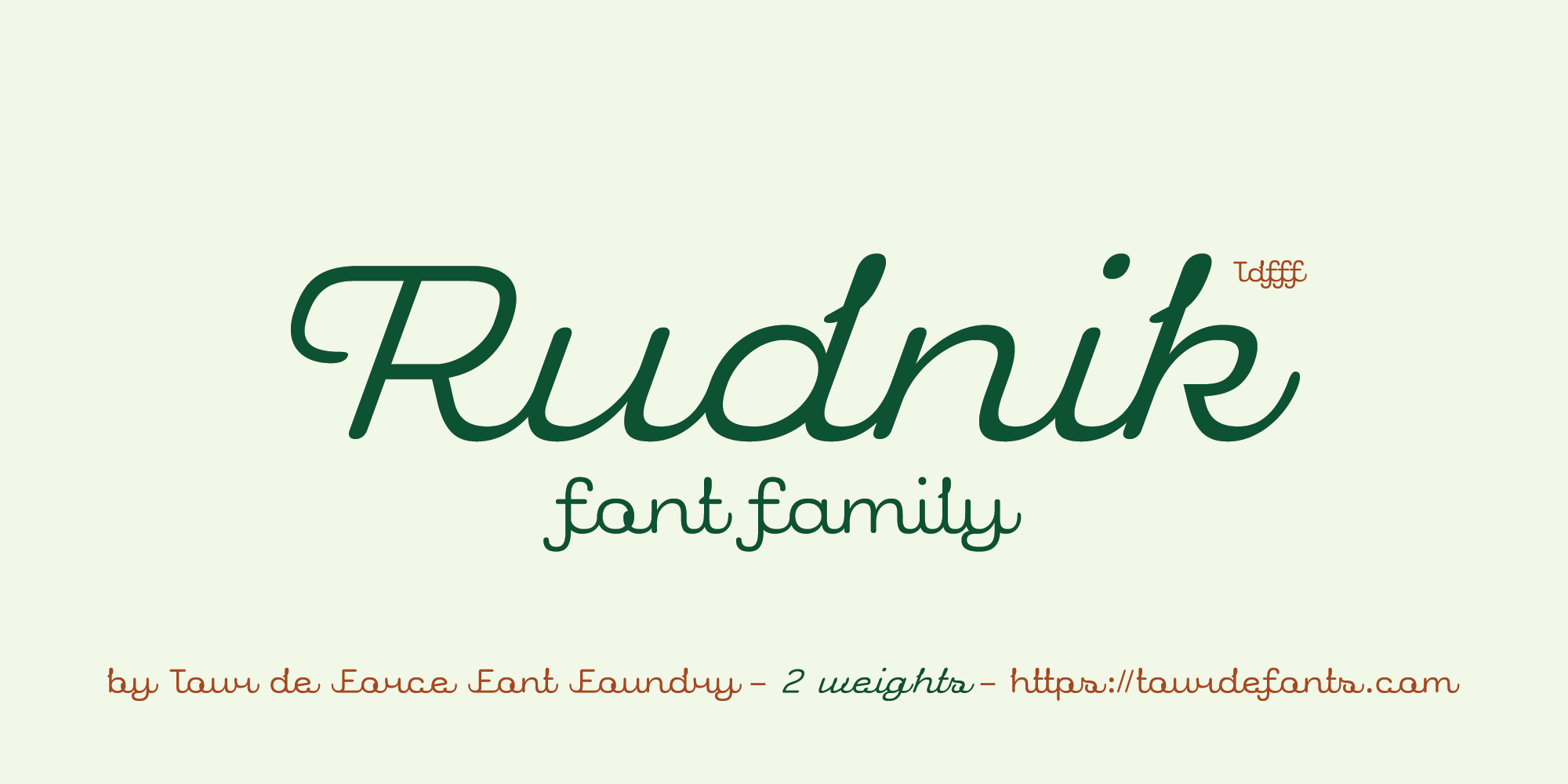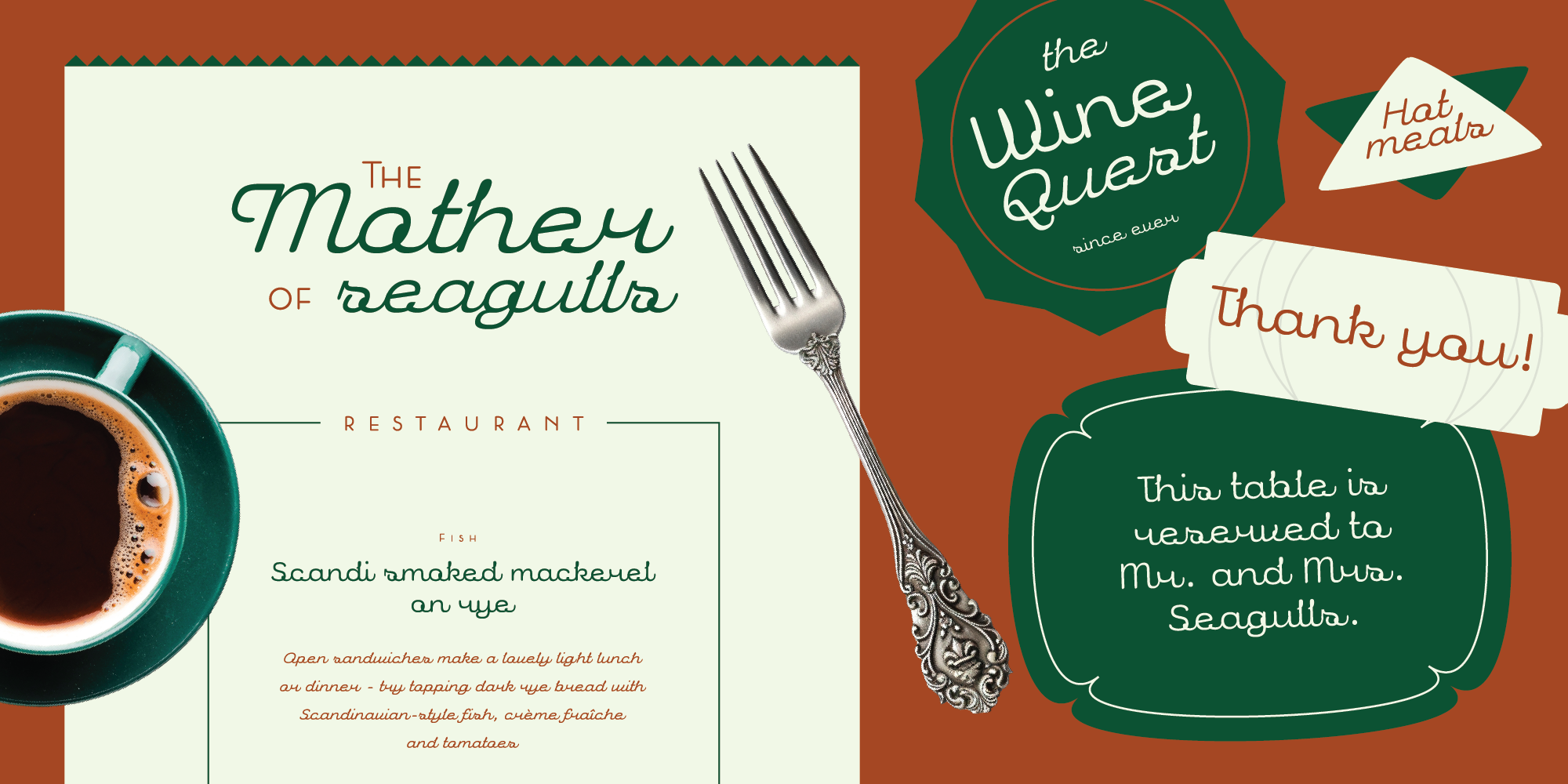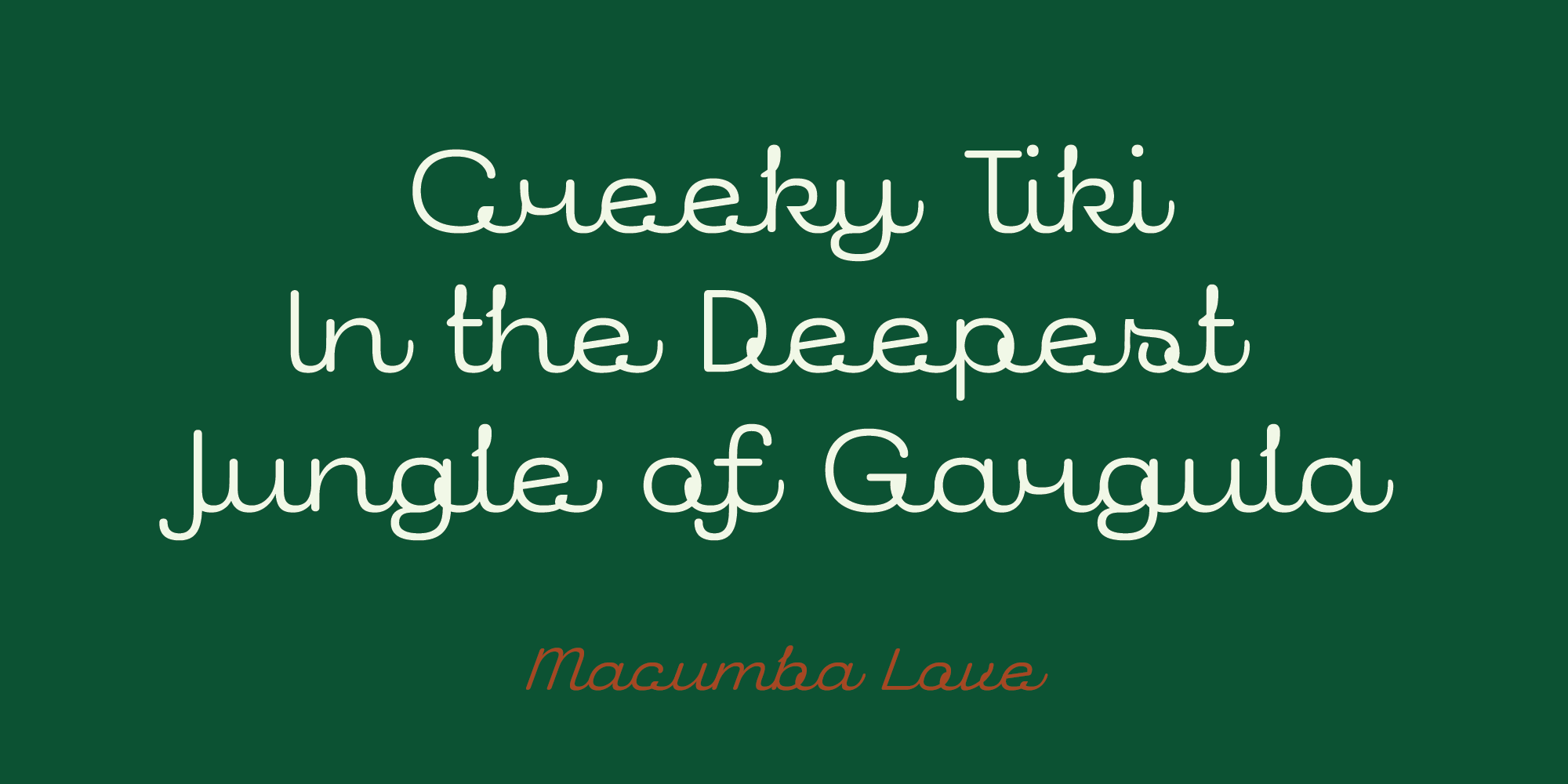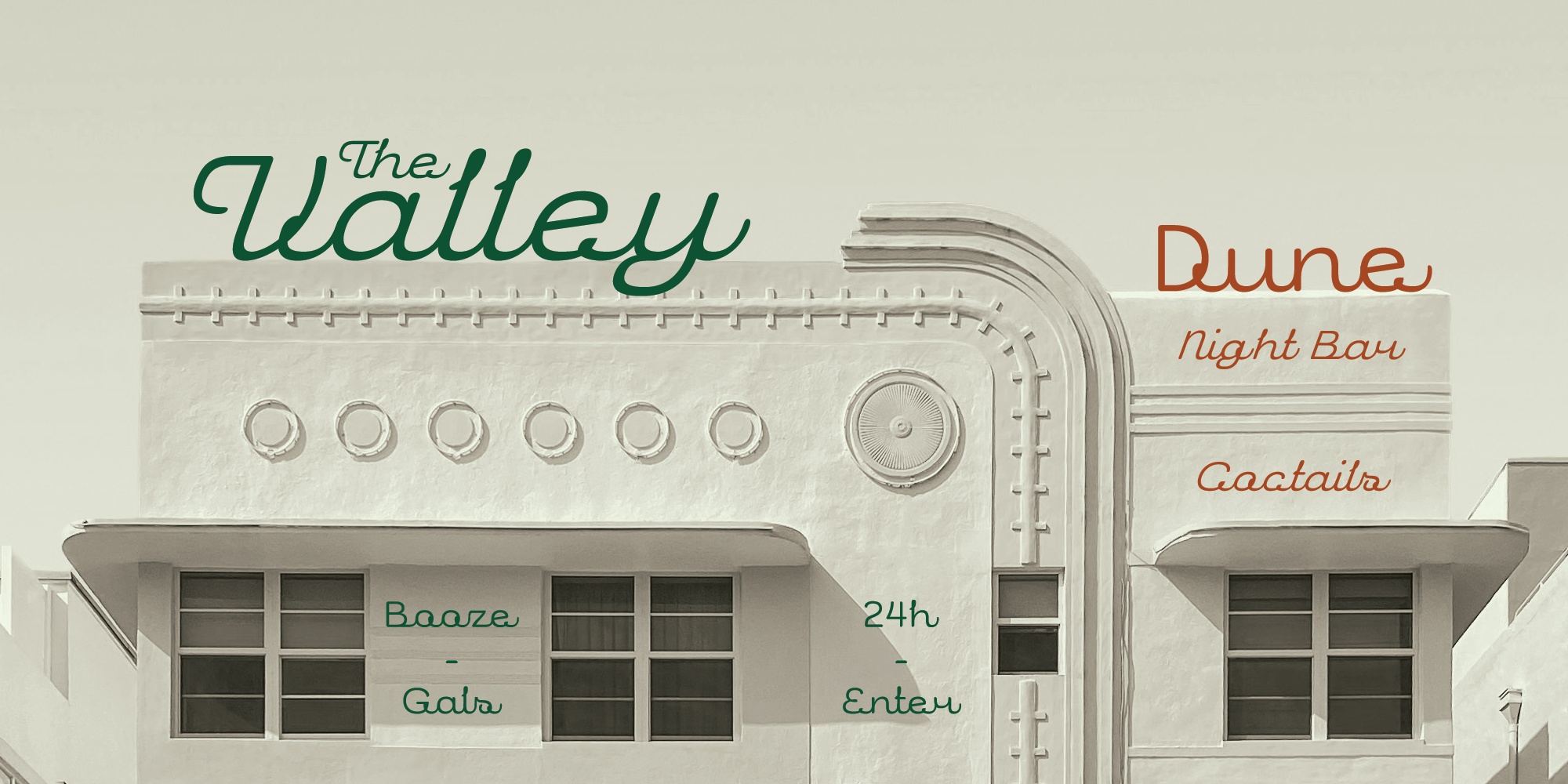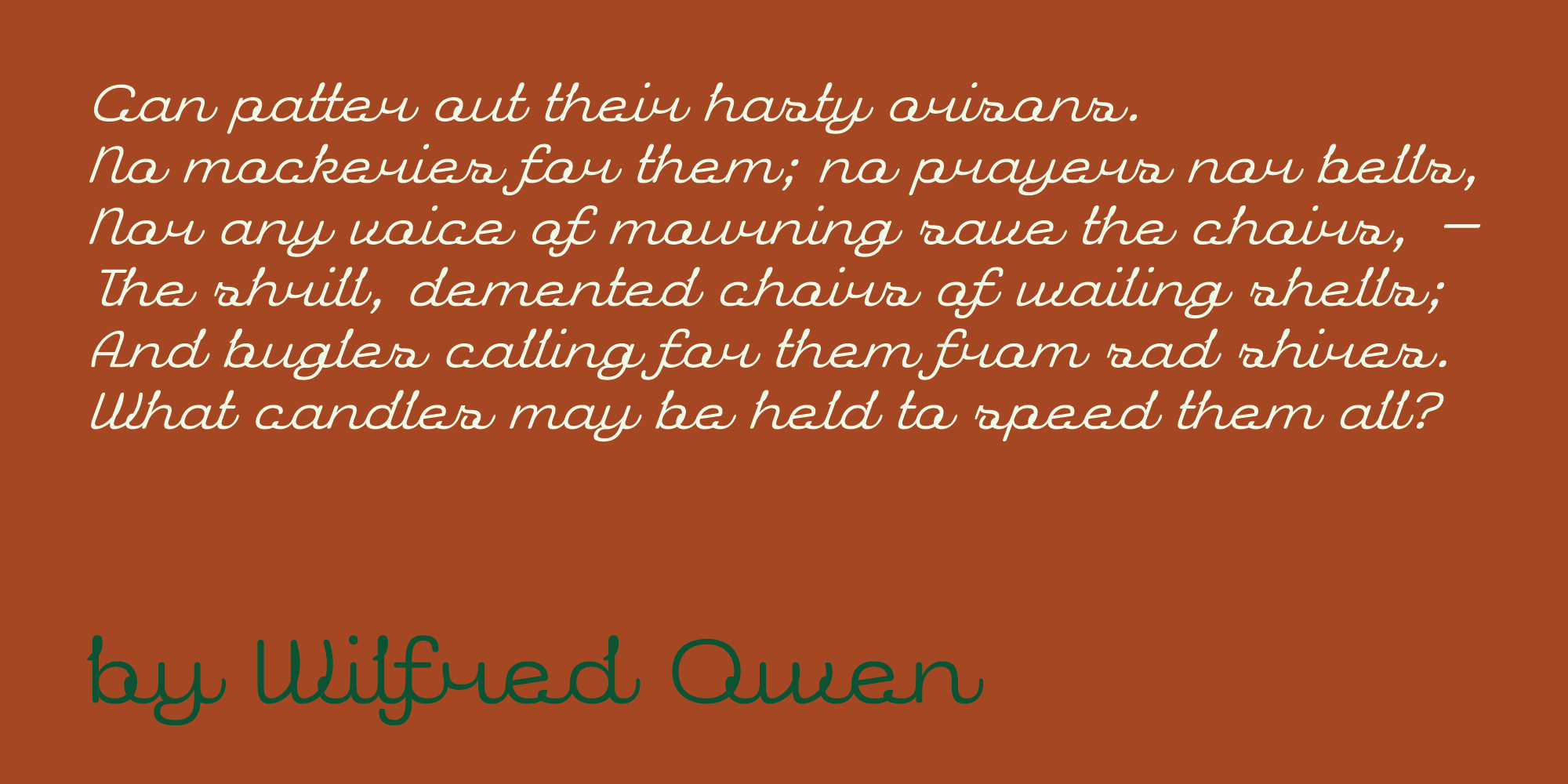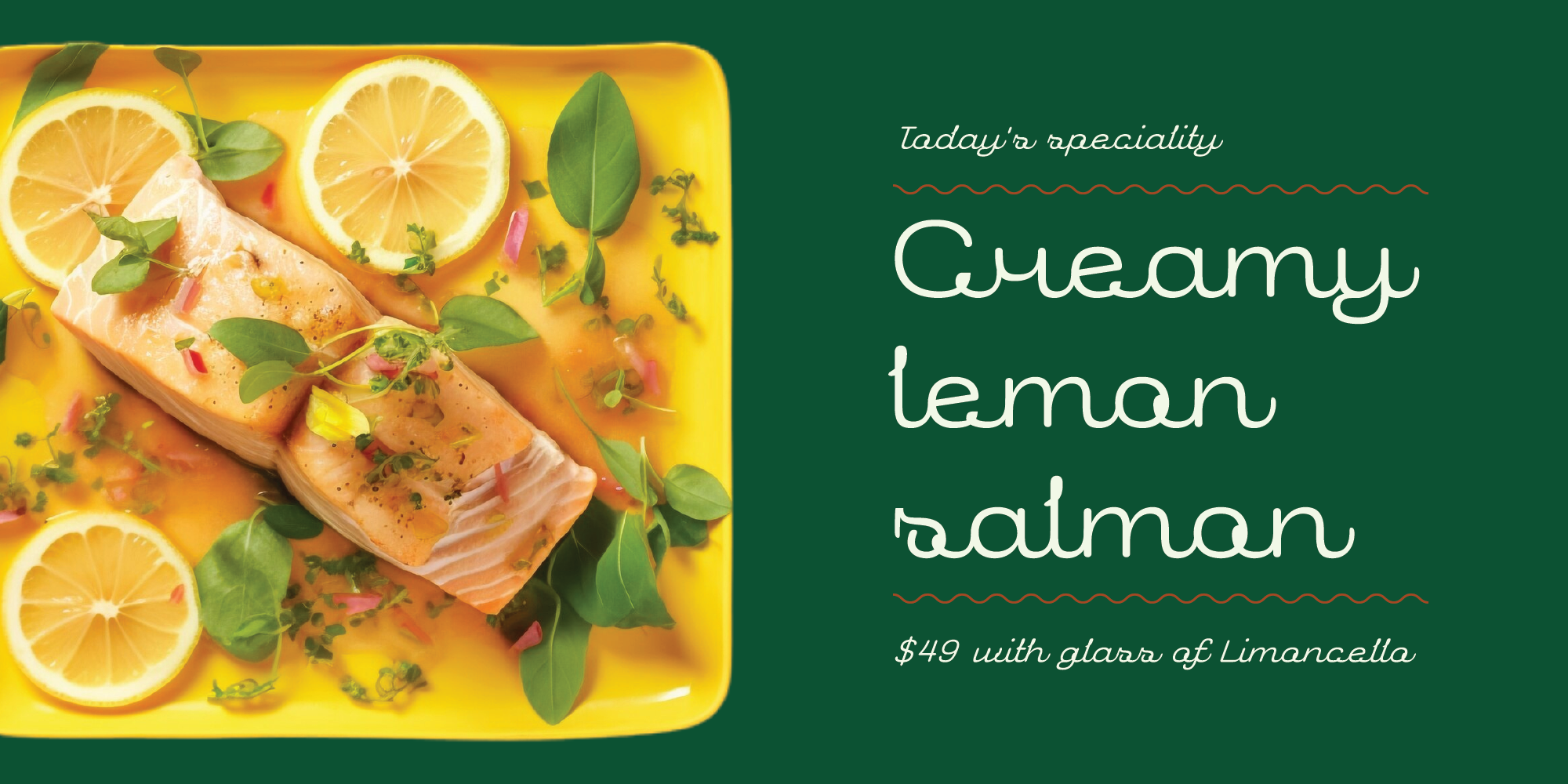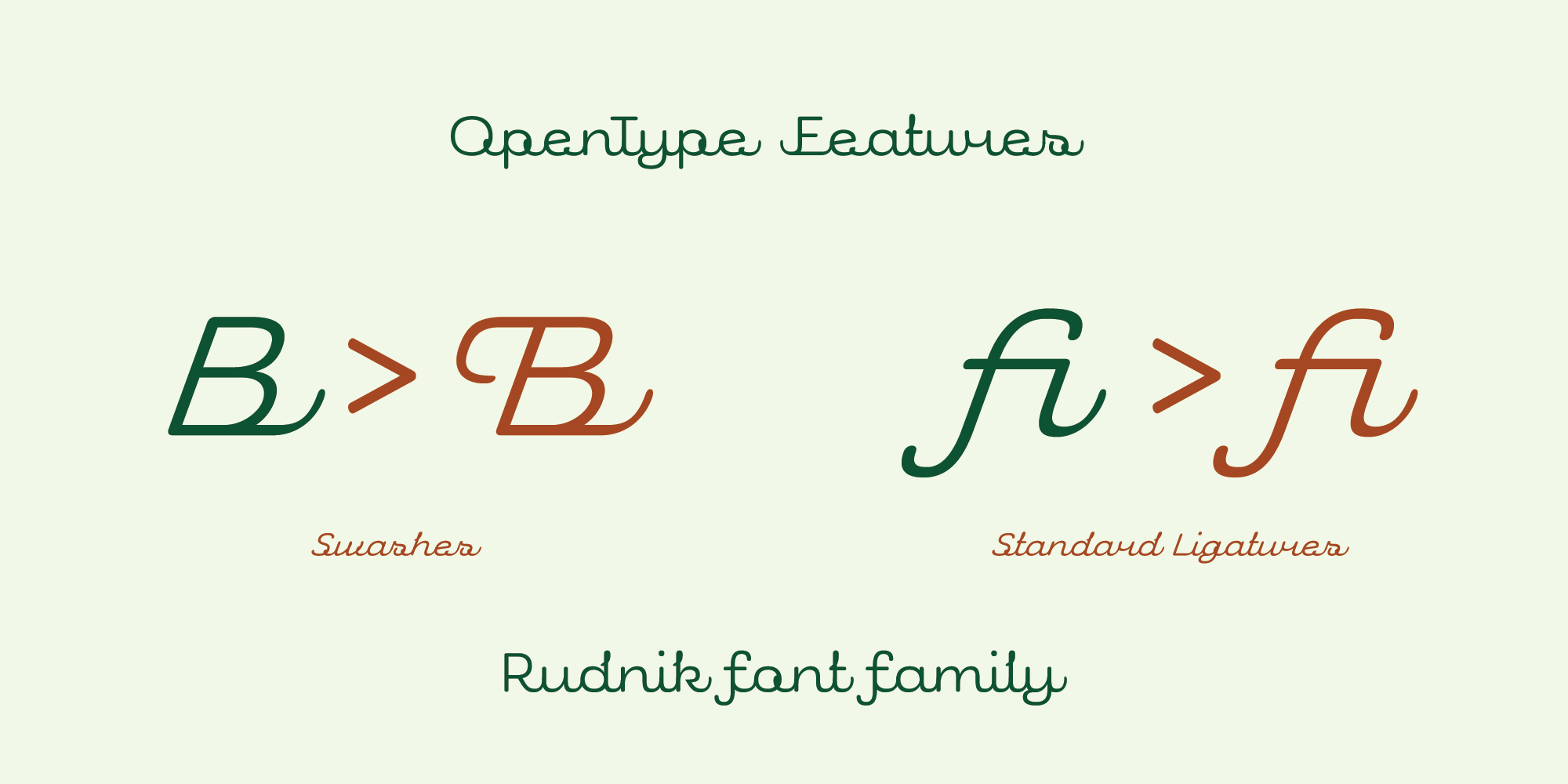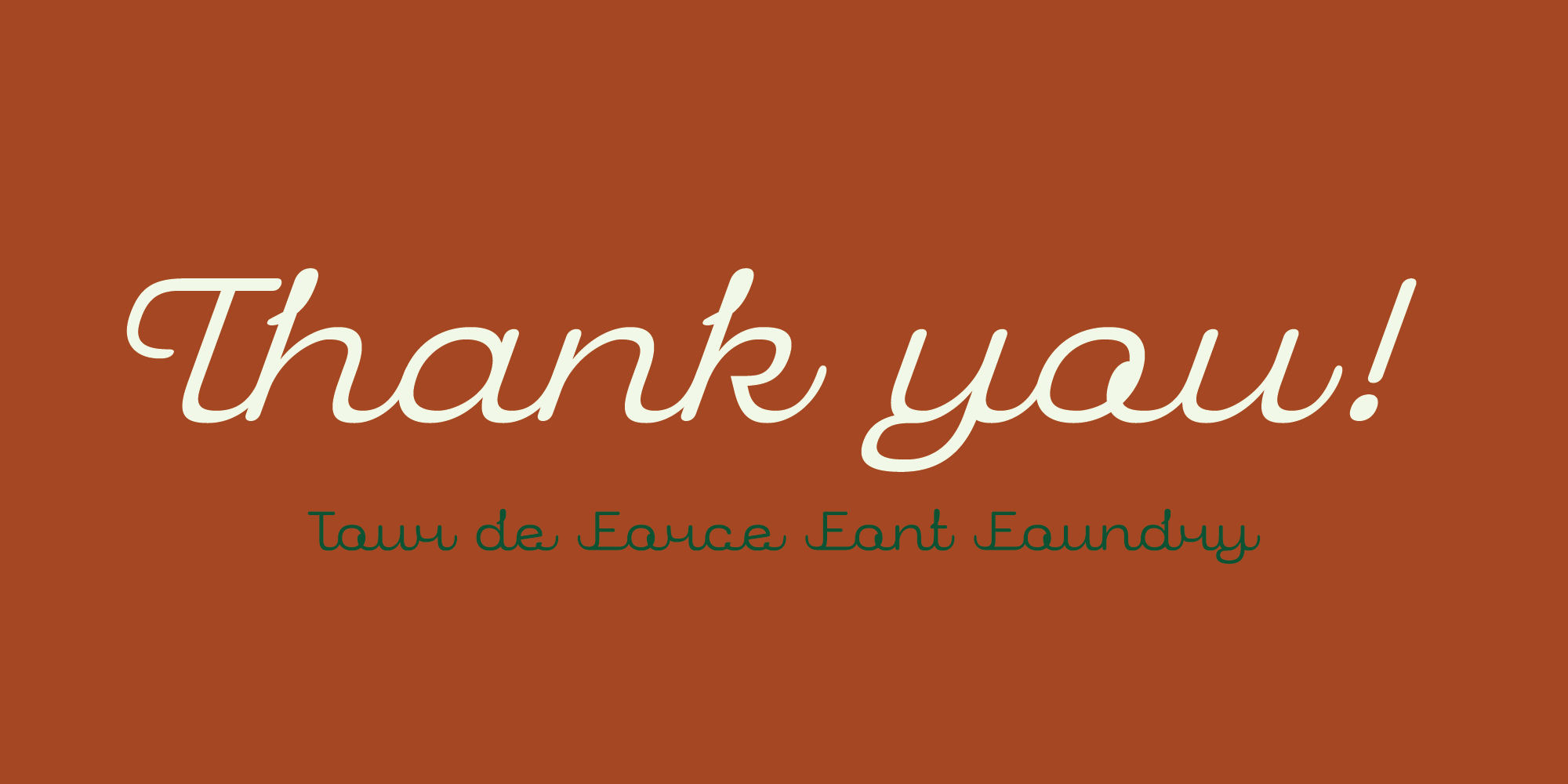
Rudnik is script font family available in two styles – Regular and Italic.
By it's design, Rudnik gathers influences from vintage calligraphic scripts and modern monoline connected fonts. With same spacing between each letter, Rudnik writes rhythmical and balanced words with distinctive and recognizable letters. Combined with some elegant sans serif font, Rudnik is ideal match for wide range of usage – from posters, packages to restaurant menus, hotels or any project that requires unique charm.
Rudnik is equipped with Standard Ligatures and Swashes as OpenType features.